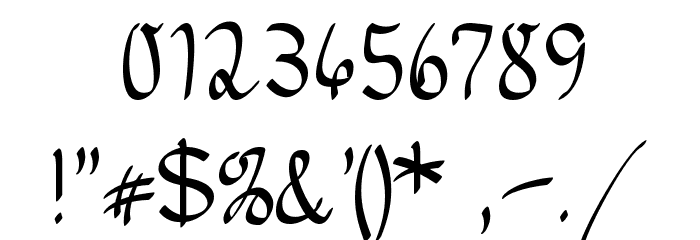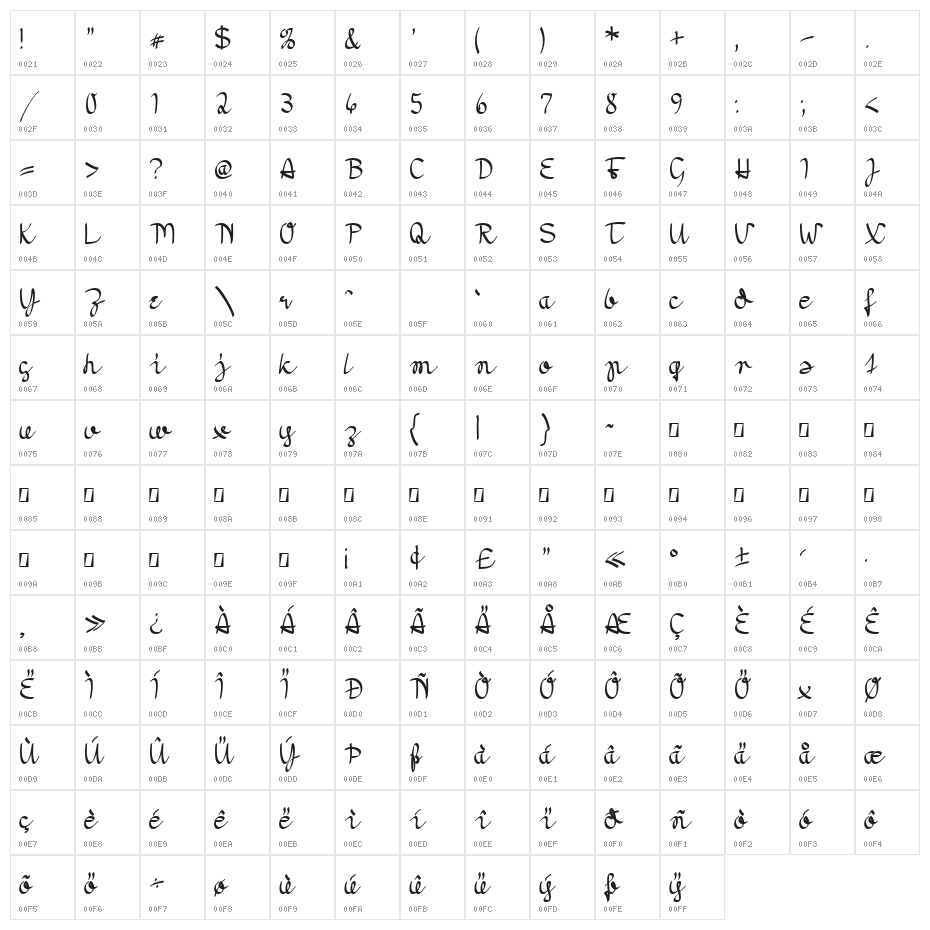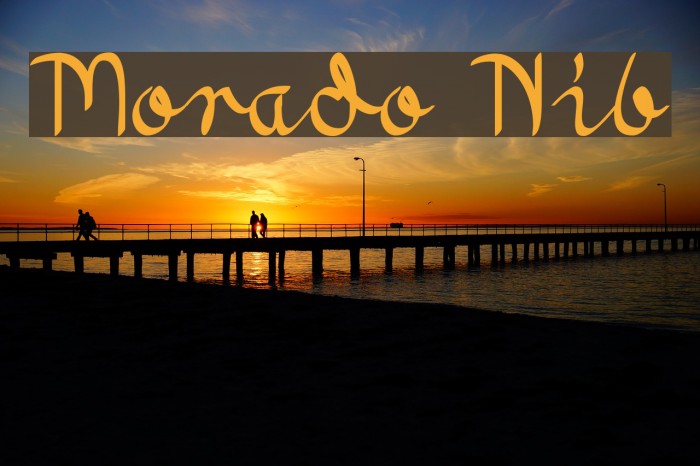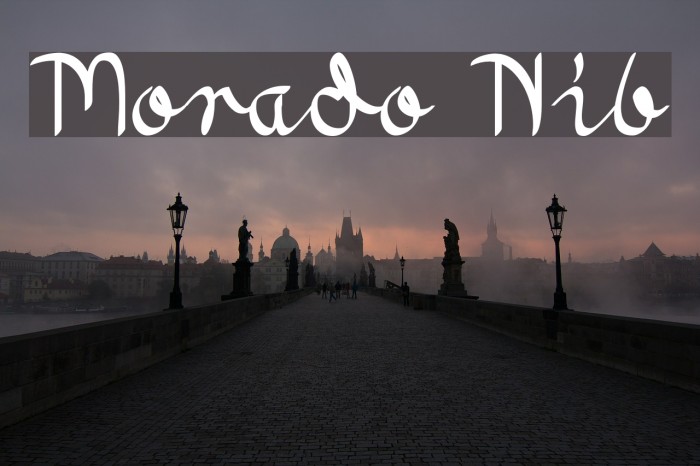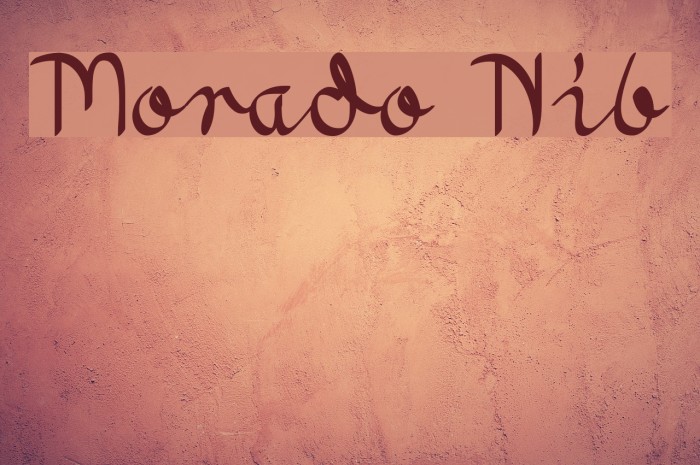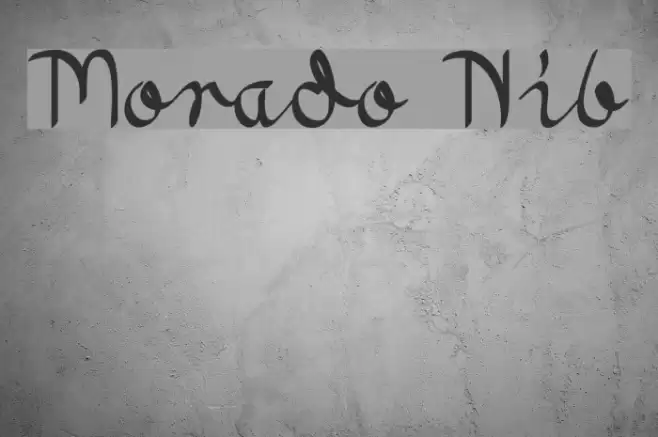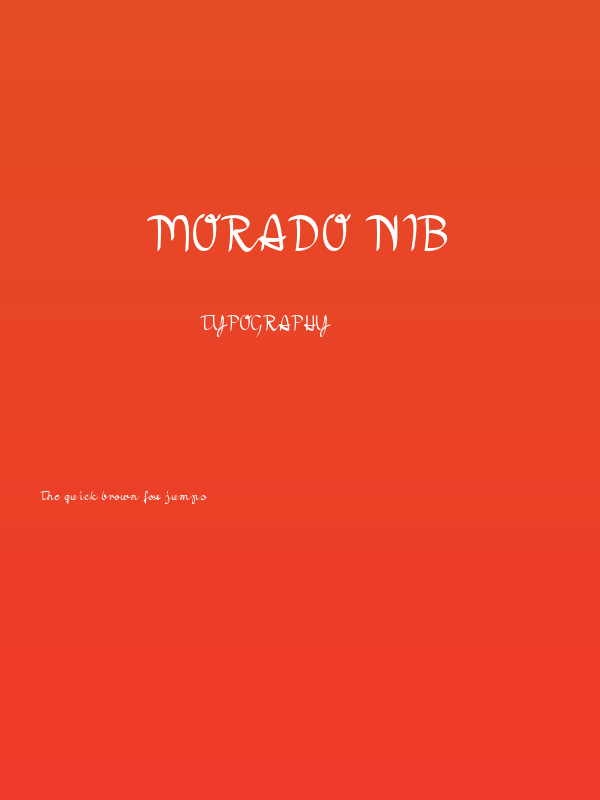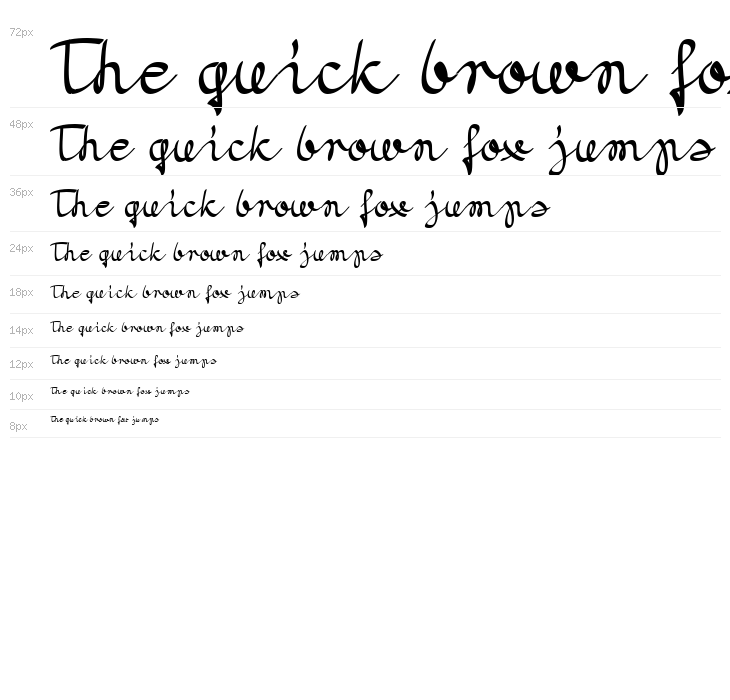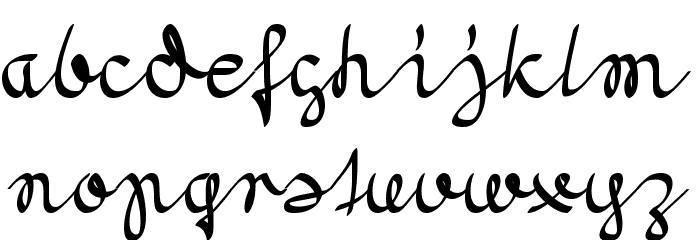
This font exhibits a unique and artistic style, characterized by its flowing, cursive script that mimics the fluidity of handwriting with a calligraphic flair. The uppercase letters are bold and expressive, with distinctive loops and curves that add a sense of elegance and sophistication. The lowercase letters maintain a consistent style, with smooth connections and a slightly slanted orientation that enhances readability while preserving the artistic nature. Numbers and special characters are crafted with the same attention to detail, ensuring a cohesive appearance across all elements. This font is ideal for projects that require a personal touch or a creative, artistic vibe.
| Use Case | Logos, Invitations, Artistic Branding |
| Proposed Projects | Ideal for wedding invitations, greeting cards, artistic branding, and creative projects that require a personal touch. |